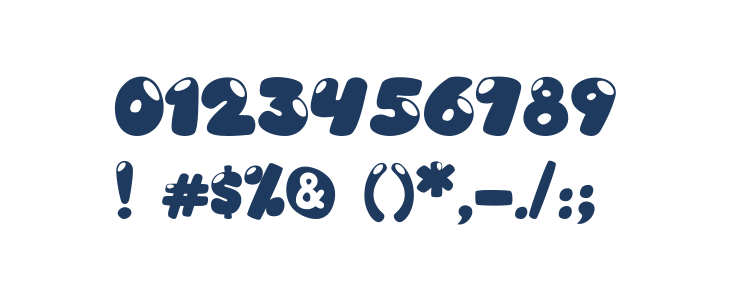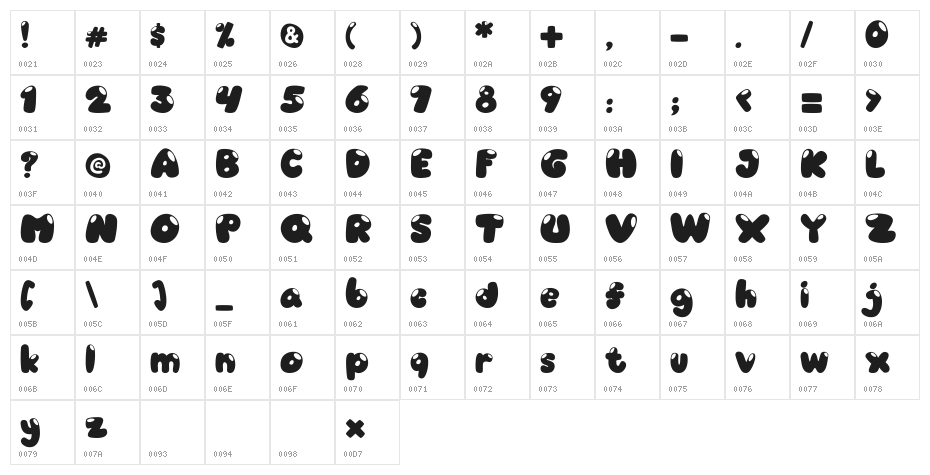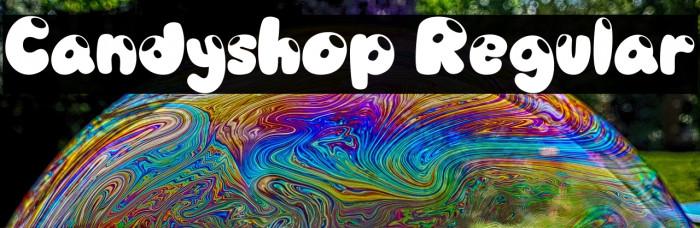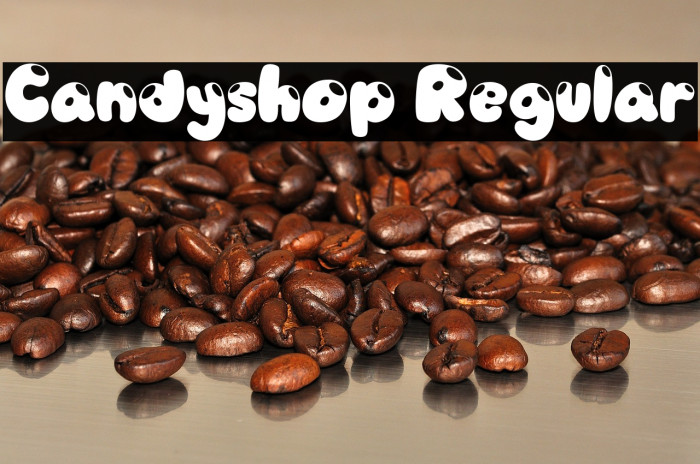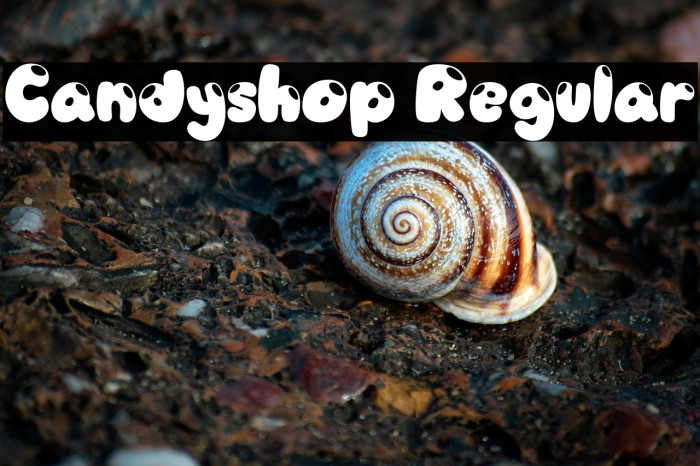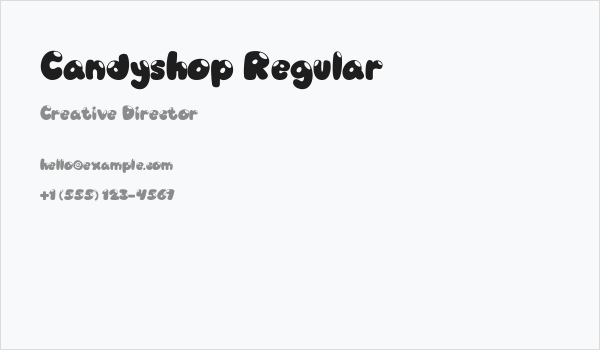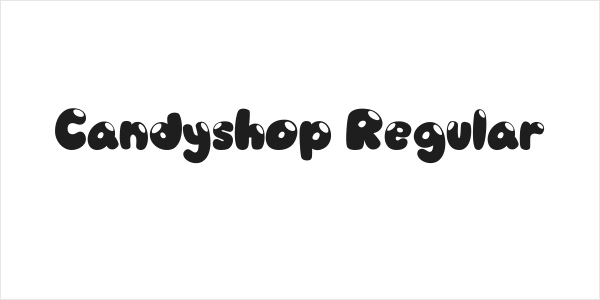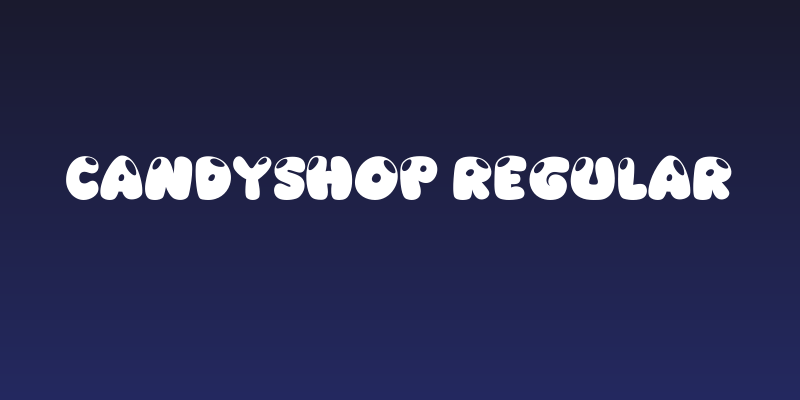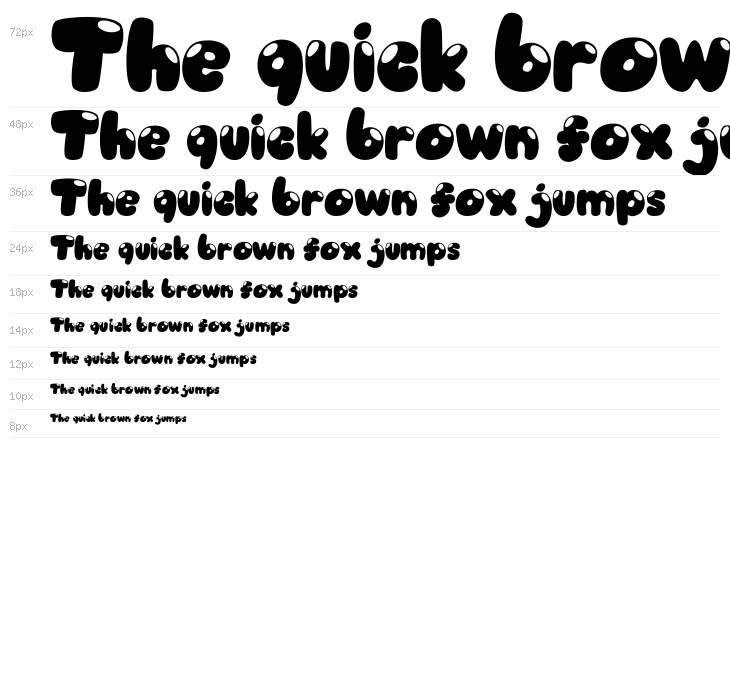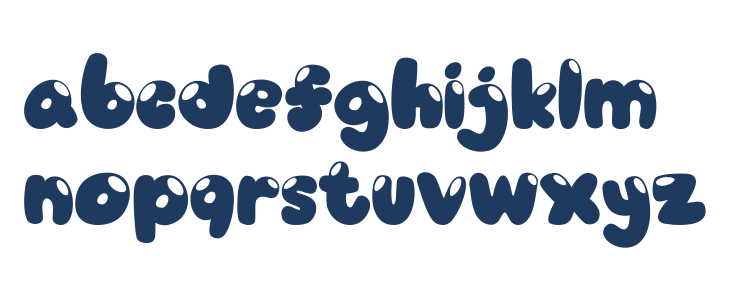
Candyshop Regular Font
Candyshop Regular Description
This playful and whimsical font features bold, rounded characters with a unique bubble-like appearance. Each letter is designed with a sense of fun and creativity, making it ideal for projects that require a lighthearted and engaging aesthetic. The font's thick strokes and rounded edges give it a friendly and approachable look, while the playful design elements add a touch of charm and personality. Perfect for children's books, playful branding, or any project that aims to capture a sense of joy and imagination.